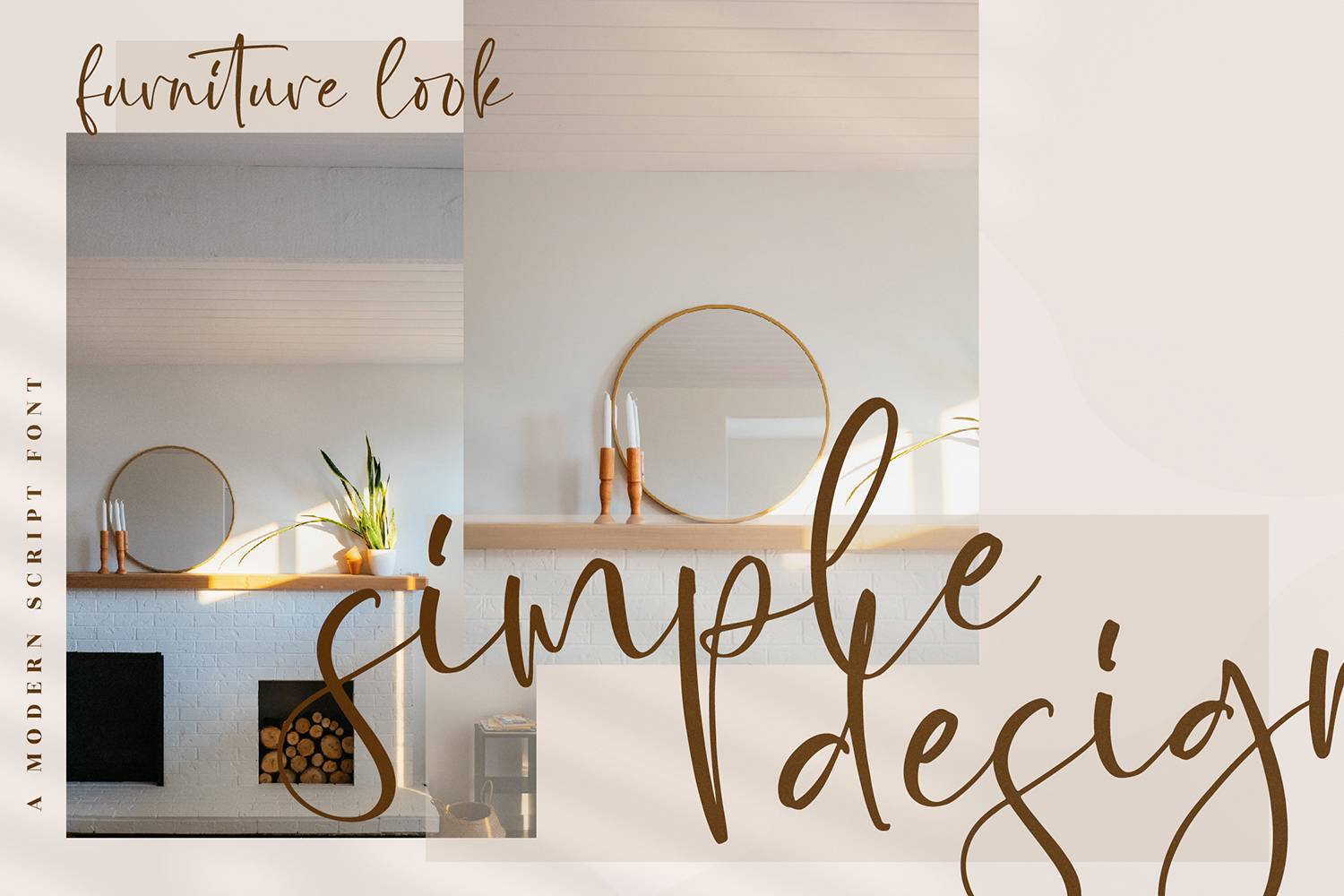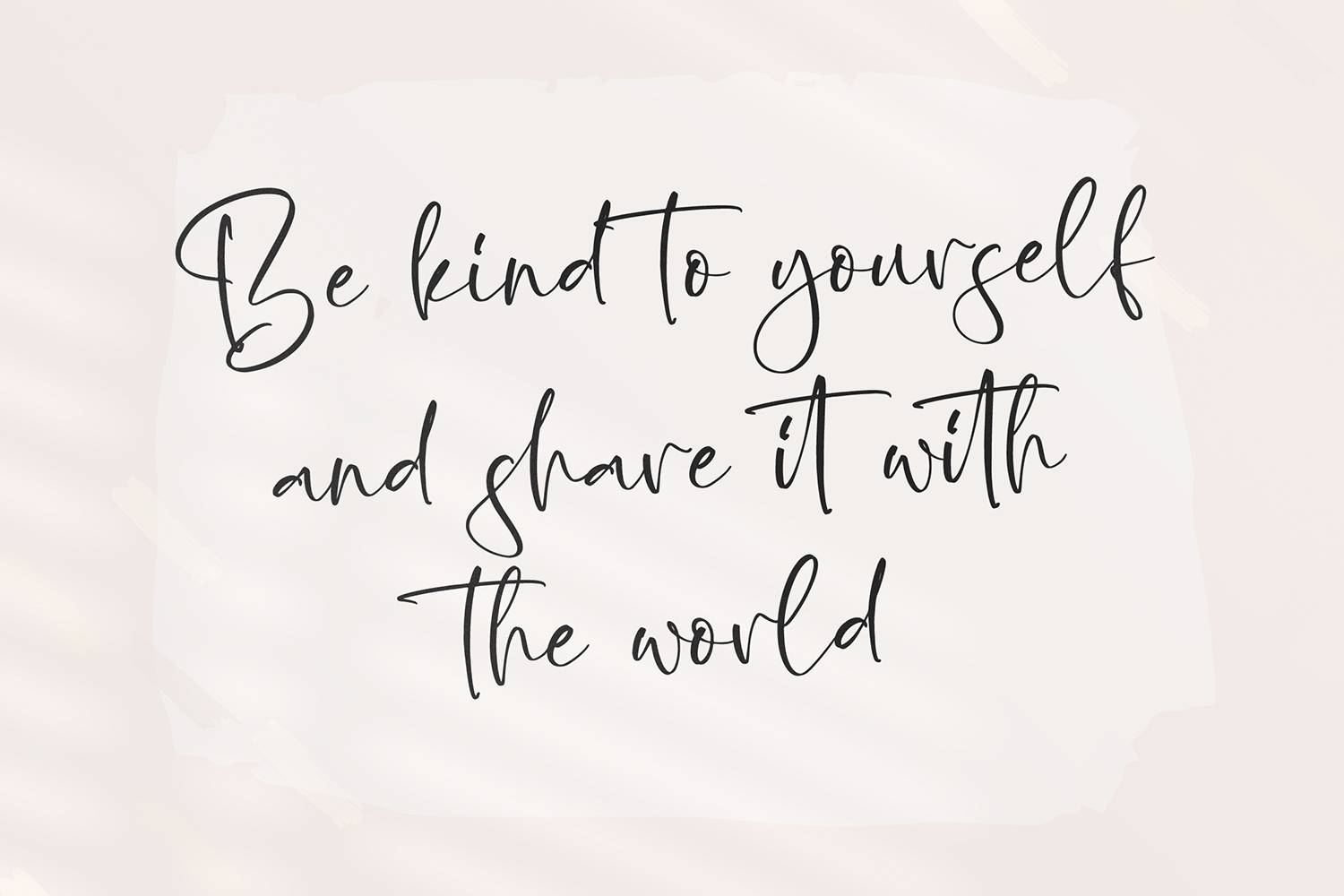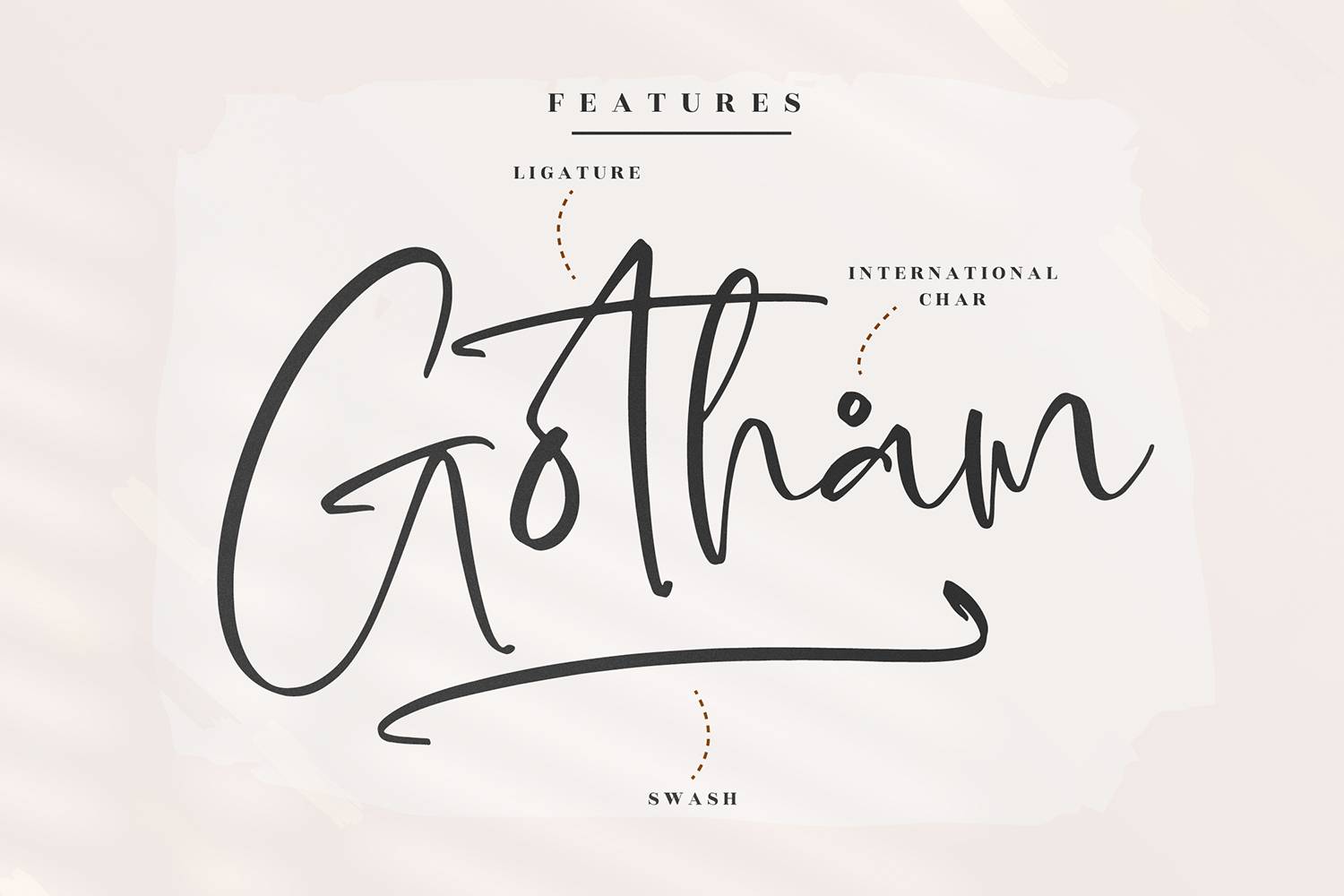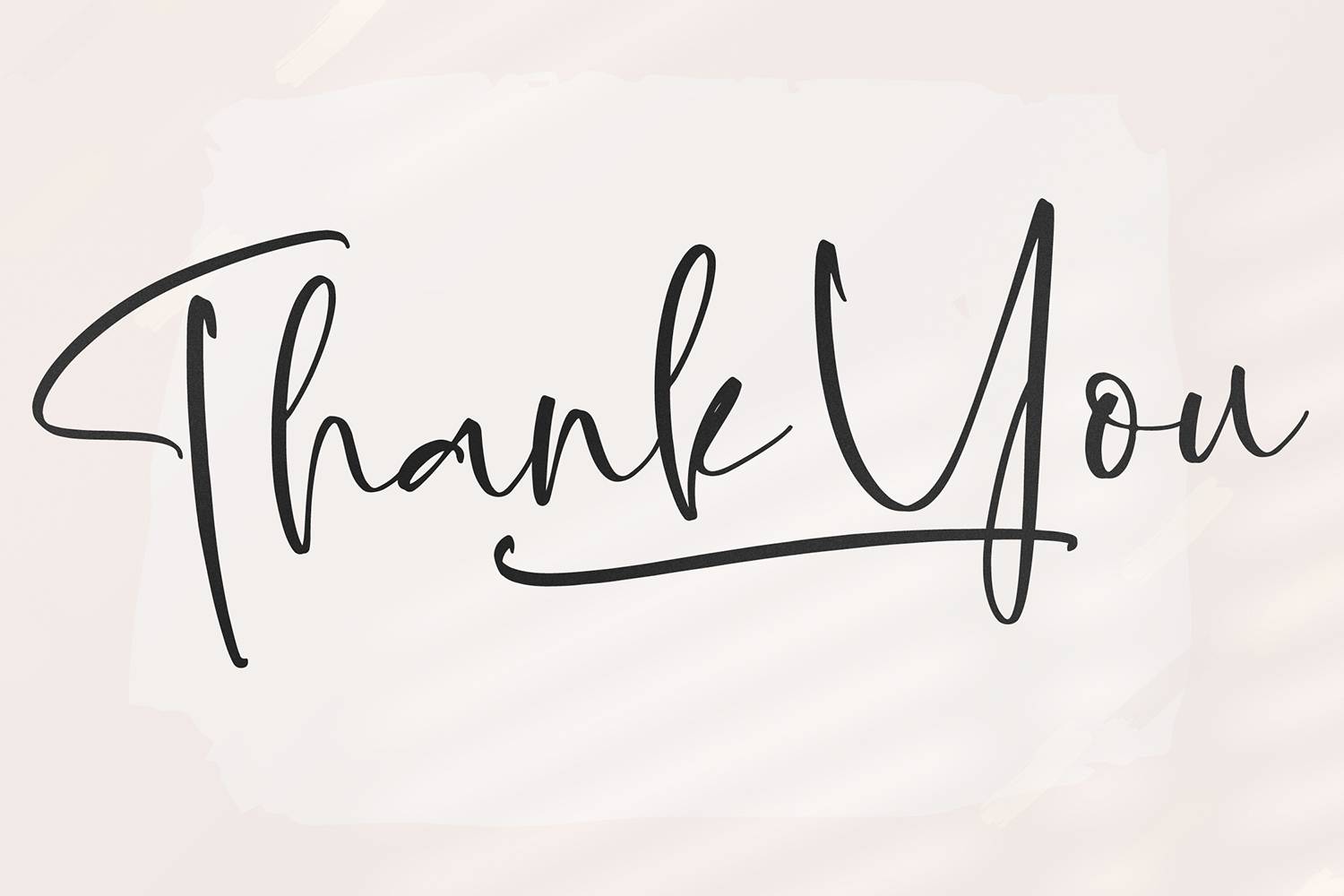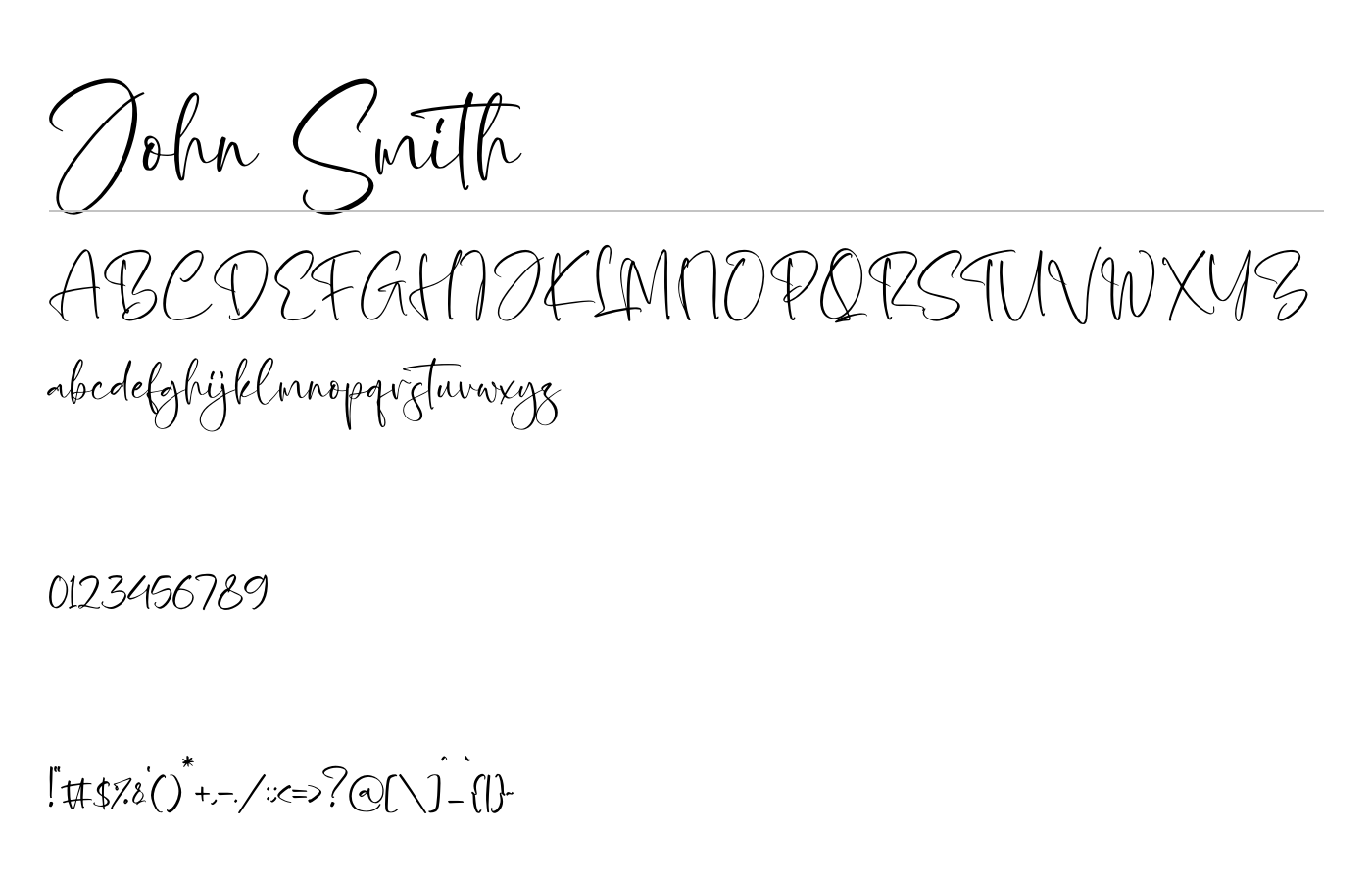
John Smith Font is a delicate and elegant handwritten script featuring thin, flowing strokes with a natural, personal touch. Its light and airy style makes it perfect for creative branding, invitations, and feminine design projects where a graceful yet approachable feel is desired. This font works best in headlines or short text, adding a sophisticated and artistic flair.
John Smith Font